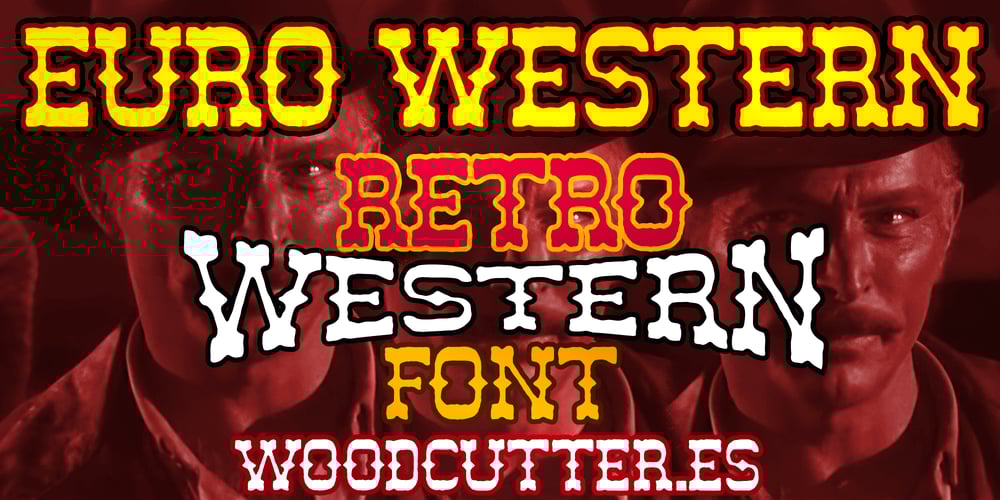
Euro Western
Euro Western font
Euro Western Font Family was designed by Jordi Manero and published by Woodcutter. Euro Western contains 1 styles and family package options. “Euro Western” is a typeface that blends classic Western aesthetics and is inspired by spaghetti westerns. Its thin, slightly imperfect uppercase letters evoke the essence of old Wild West posters but with a unique and contemporary style. It includes accents, making it versatile for various languages and applications. Ideal for titles, posters, and designs seeking a rustic and authentic atmosphere. “Euro Western” brings a sense of history and adventure to any project, capturing the eye with its distinctive vintage charm.–Uppercase